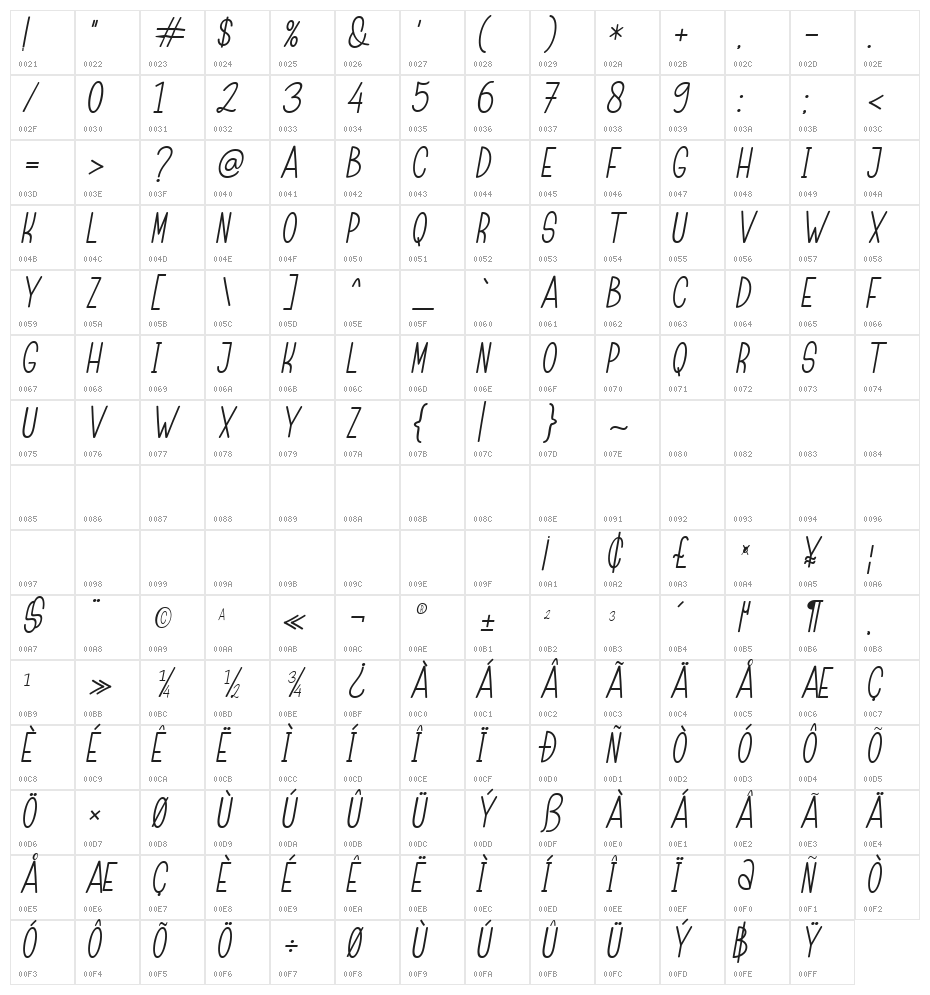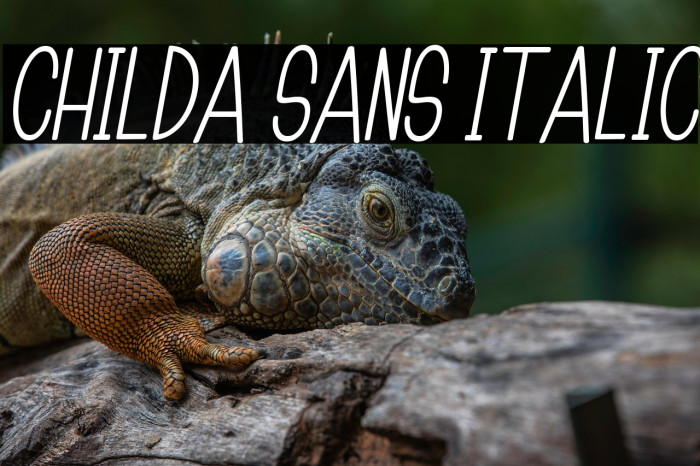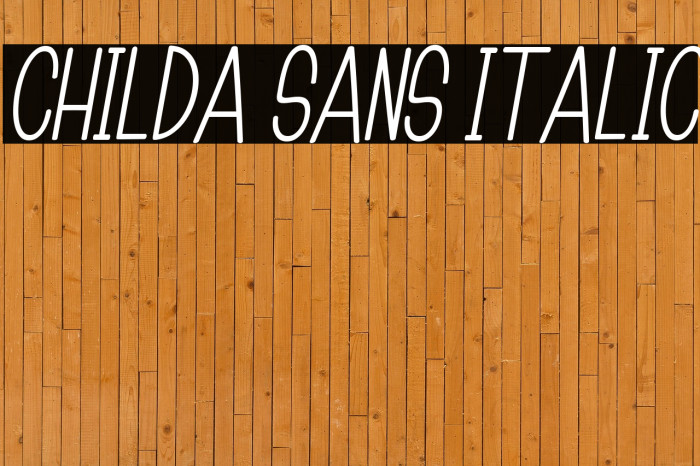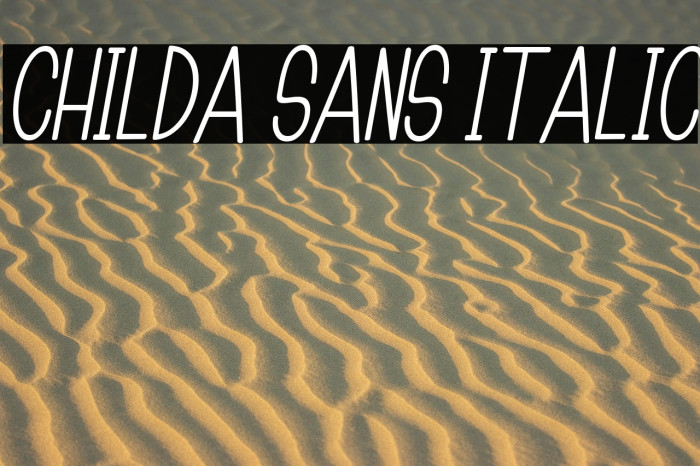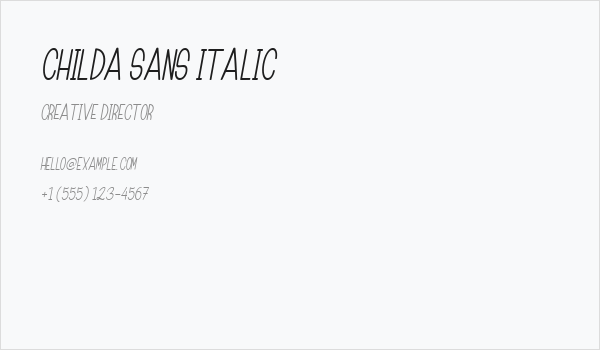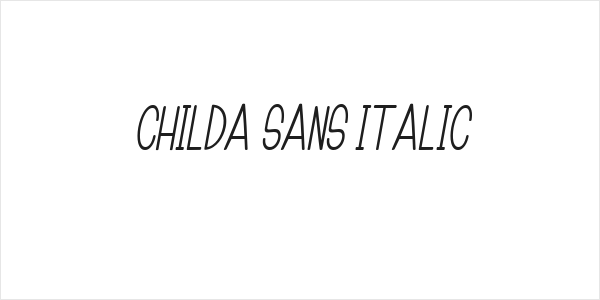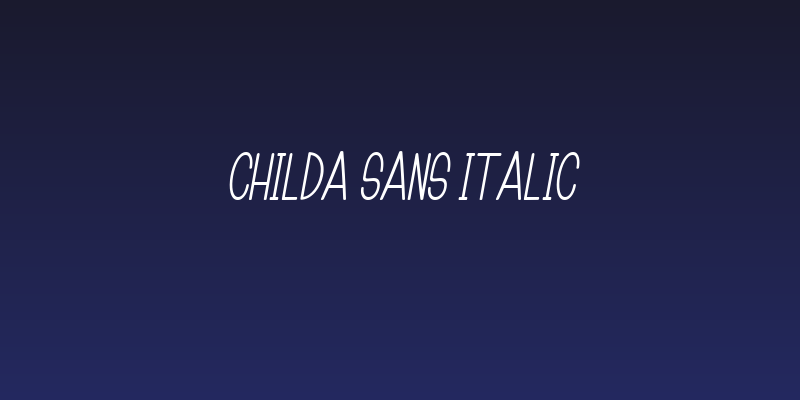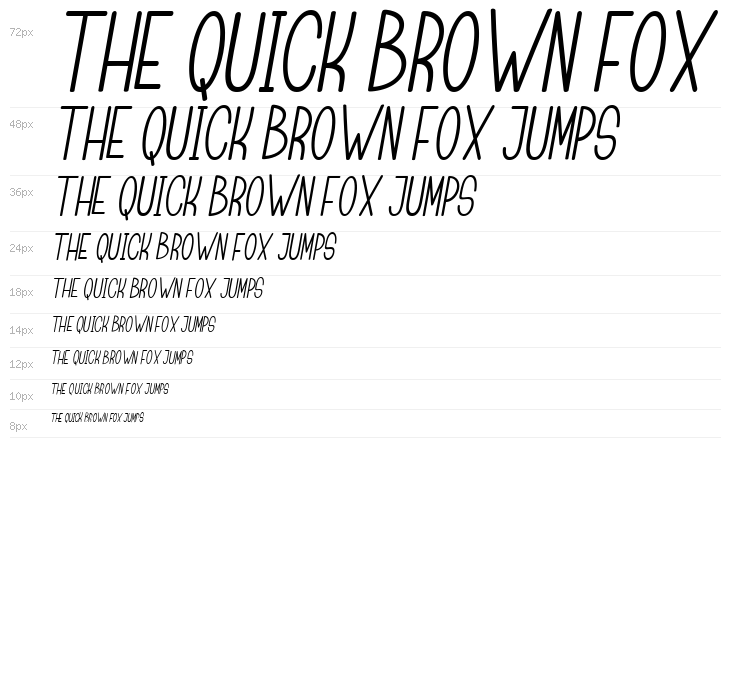
Childa Sans Italic Font
Childa Sans Italic Description
This font features a sleek and modern sans-serif design with a distinct italic slant, giving it a dynamic and energetic appearance. The characters are elongated and slightly condensed, contributing to a streamlined look. The strokes are consistent in thickness, providing a uniform and clean aesthetic. The font maintains a balance between readability and style, making it suitable for various applications. Its unique character shapes and smooth curves add a touch of elegance, while the italic style introduces a sense of motion and fluidity. The spacing between characters is moderate, ensuring clarity and legibility even at smaller sizes.
| Use Case | Headlines, Logos, Editorial design |
| Proposed Projects | Ideal for branding, advertising, and editorial design projects where a modern and stylish look is desired. |